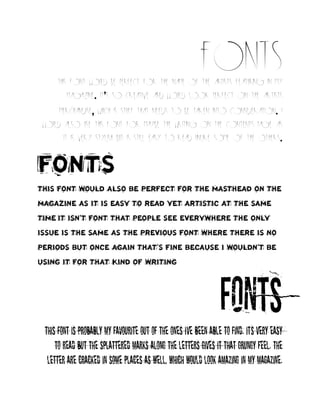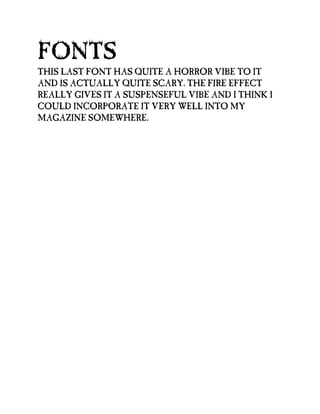
fonts
i chose this font because of the crazy
electric look to it. i wouldn’t be able to
write an article in this font but could
maybe incorporate it into the front cover
somehow.
FONTS
i really like this font because its all over the
place and has no real structure. this would
look really good on my magazine to add some
style and creativeness the only issue is that
it doesn’t have any periods or apostrophes etc
but i wouldn’t be using it for long segments of
writing so it could still work very well
FONTS
I love this font because of it’s bold look.
When you look at it, it confuses your eyes as
if you were looking at something 3d. I am
definitely considering this font for my
masthead because it makes a statement.
FONTSThis font would be perfect for the name of the artists featuring in my
magazine. IT’S SO CREATIVE AND WOULD LOOK PERFECT ON THE ARTISTS
MERCHANDISE, WHICH IS STUFF THAT NEEDS TO BE TAKEN INTO CONSIDERATION. I
WOULD ALSO USE THIS FONT FOR MAYBE THE WRITING ON THE CONTENTS PAGE AS
IT IS VERY STYLISH BUT IS STILL EASY TO READ UNLIKE SOME OF THE OTHERS.
FONTS
THIS FONT WOULD ALSO BE PERFECT FOR THE MASTHEAD ON THE
MAGAZINE AS IT IS EASY TO READ YET ARTISTIC AT THE SAME
TIME.IT ISN’T FONT THAT PEOPLE SEE EVERYWHERE THE ONLY
ISSUE IS THE SAME AS THE PREVIOUS FONT WHERE THERE IS NO
PERIODS BUT ONCE AGAIN THAT’S FINE BECAUSE I WOULDN’T BE
USING IT FOR THAT KIND OF WRITING
FONTSTHIS FONT IS PROBABLY MY FAVOURITE OUT OF THE ONES I’VE BEEN ABLE TO FIND. IT’S VERY EASY
TO READ BUT THE SPLATTERED MARKS ALONG THE LETTERS GIVES IT THAT GRUNGY FEEL. THE
LETTER ARE CRACKED IN SOME PLACES AS WELL, WHICH WOULD LOOK AMAZING IN MY MAGAZINE.
FONTS
THIS LAST FONT HAS QUITE A HORROR VIBE TO IT
AND IS ACTUALLY QUITE SCARY. THE FIRE EFFECT
REALLY GIVES IT A SUSPENSEFUL VIBE AND I THINK I
COULD INCORPORATE IT VERY WELL INTO MY
MAGAZINE SOMEWHERE.